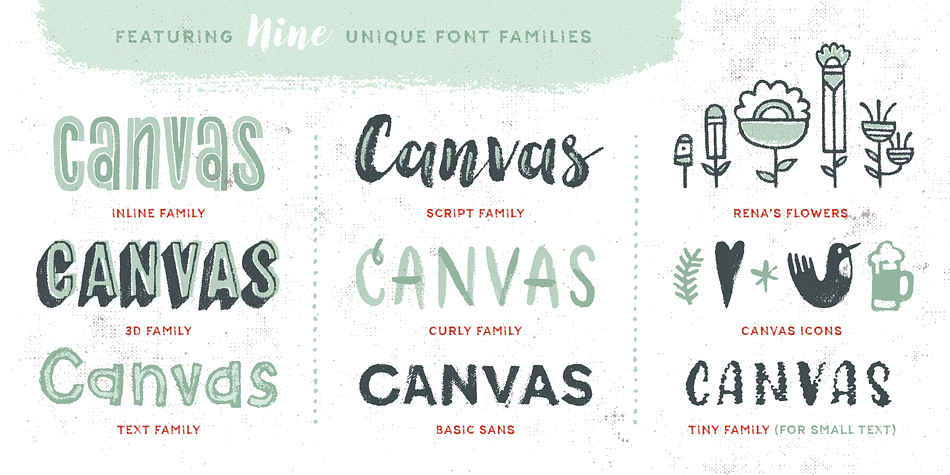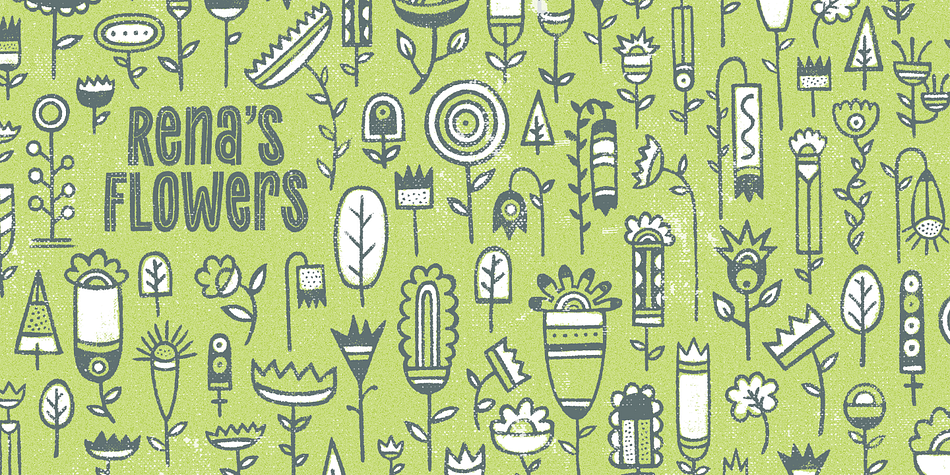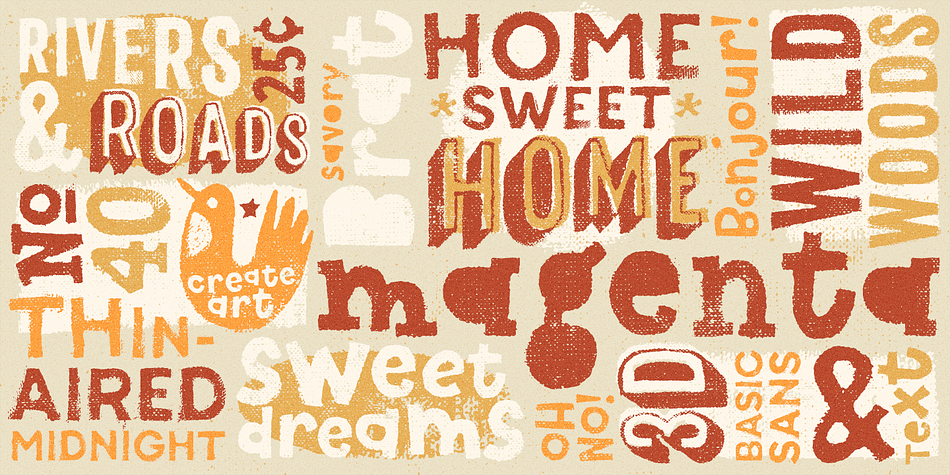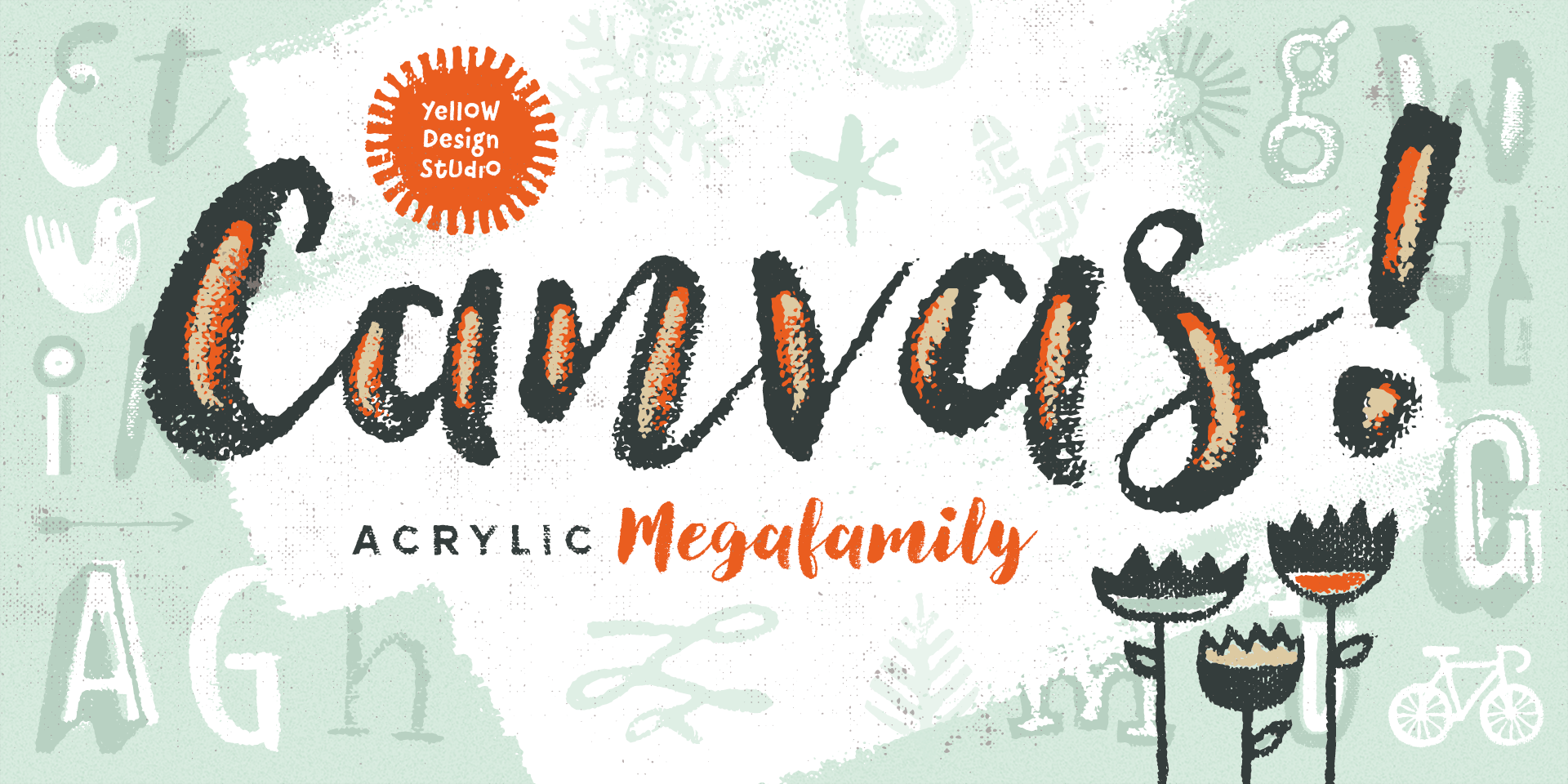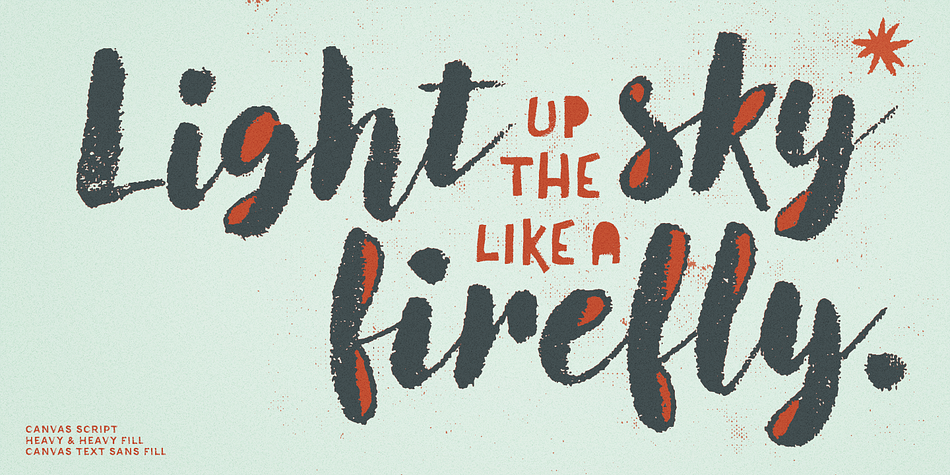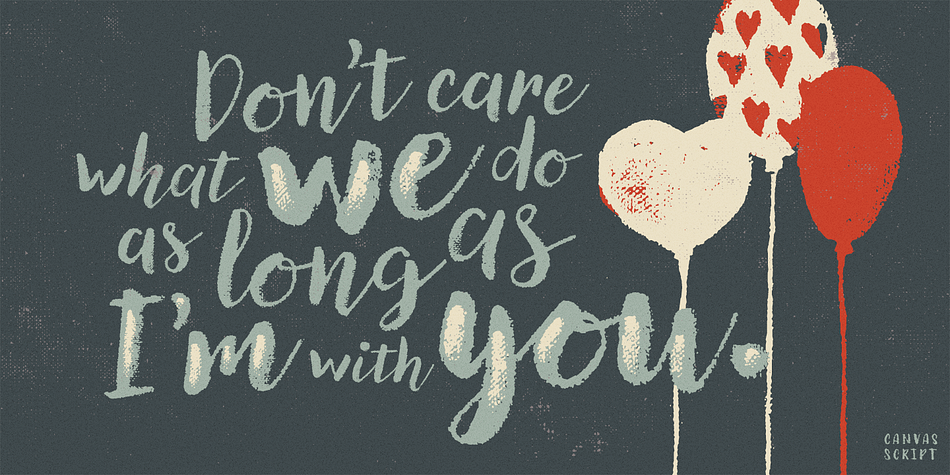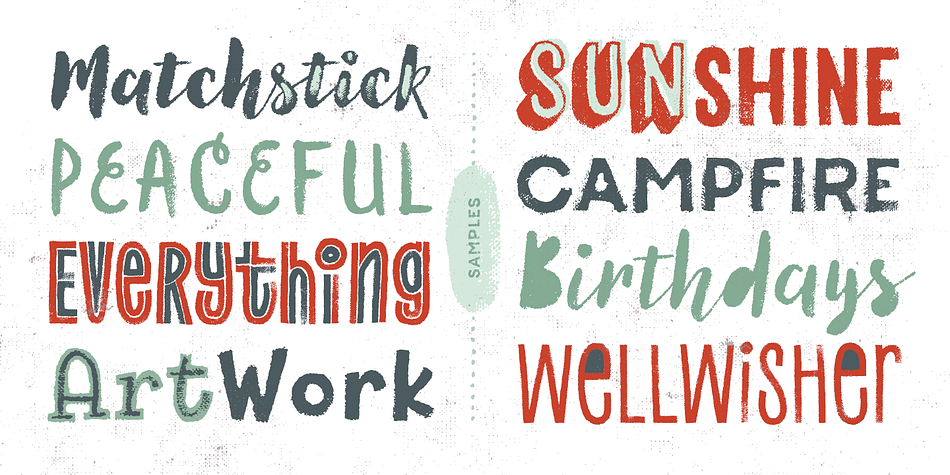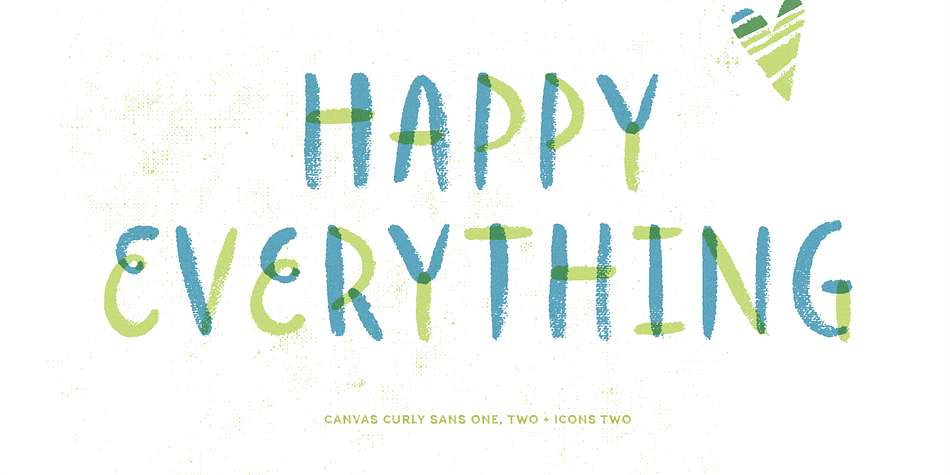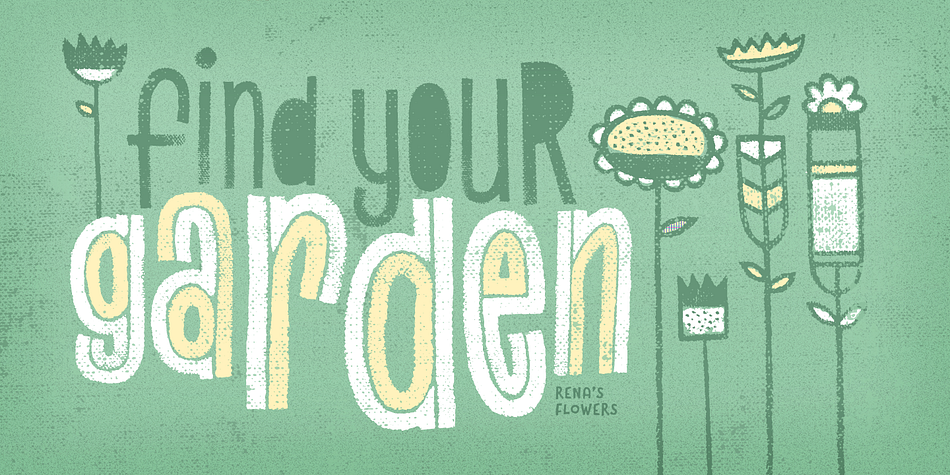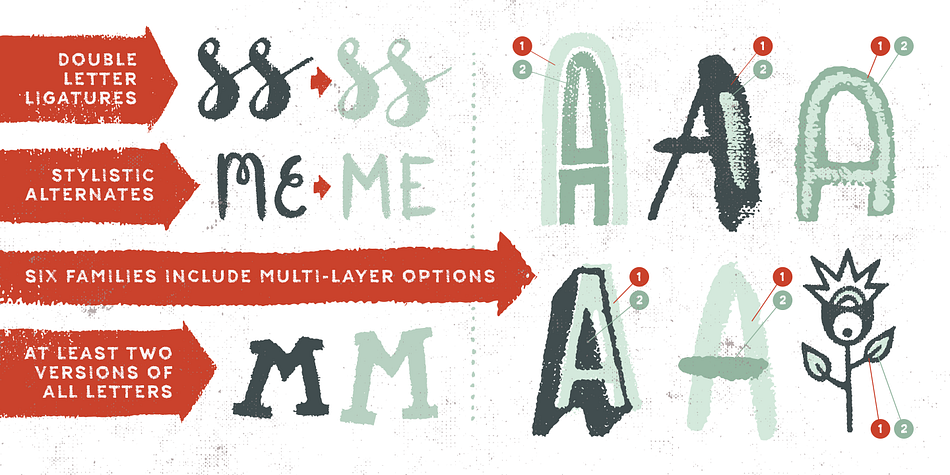
Designed by Ryan Martinson and Rena Martinson, Canvas is a multiple classification font family. This typeface has thirty-nine styles and was published by Yellow Design Studio.
The Canvas Acrylic Megafamily from Yellow Design Studio is a collection of nine distinct hand-painted font families ranging from refreshingly festive to folky and organic. Six of the families include unique layering options for added dimension and impact. With authentic, hi-res texture the fonts maintain their realism even at very large sizes.
The Canvas Megafamily consists of 9 sub-families (39 fonts total):
Canvas Script (acrylic brush fonts with regular, heavy, and layered versions)
Canvas 3D (a textured dimensional family)
Canvas Curly (playfully sincere letterforms with unique layers)
Canvas Inline (an eccentric unicase family)
Canvas Text (casual sans and serif with accent layers)
Canvas Basic Sans (all-caps acrylic geometric sans)
Canvas Tiny (designed for very small typesettings)
Canvas Icons (340 tasty shapes, icons and, seasonal elements)
Canvas Rena’s Flowers (unique floral icons & patterns designed by Rena Martinson)